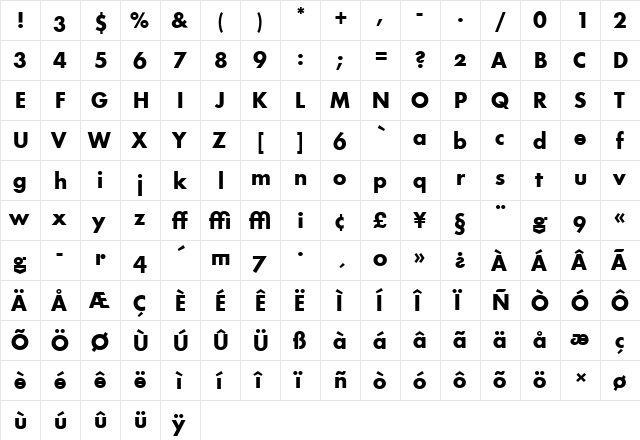
RennerBold Regular
Design Context for RennerBold Typeface
RennerBold offers clean, dependable letterforms without strong stylistic allegiance, making it a practical choice for designers who need flexibility. The heavy weight commands attention and anchors typographic hierarchies.